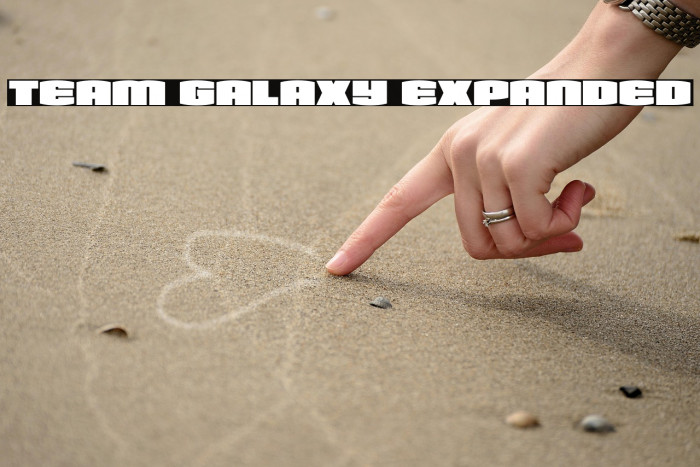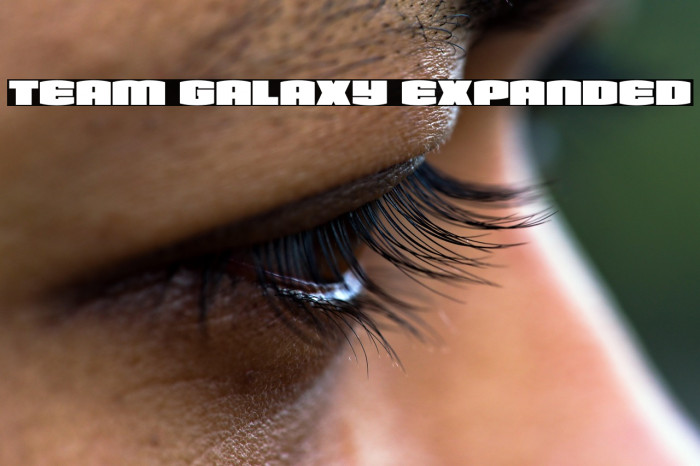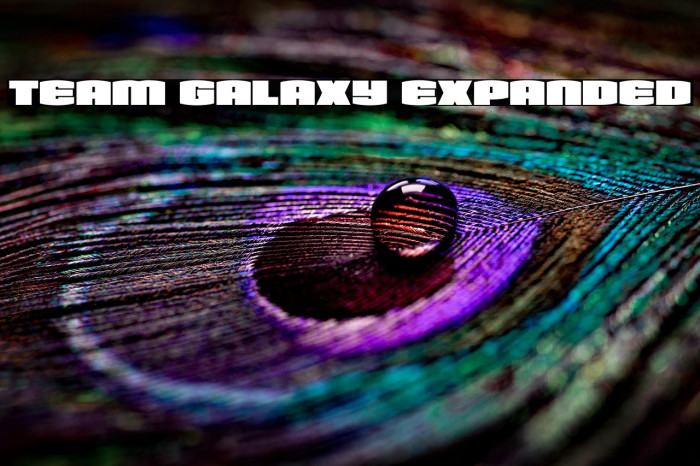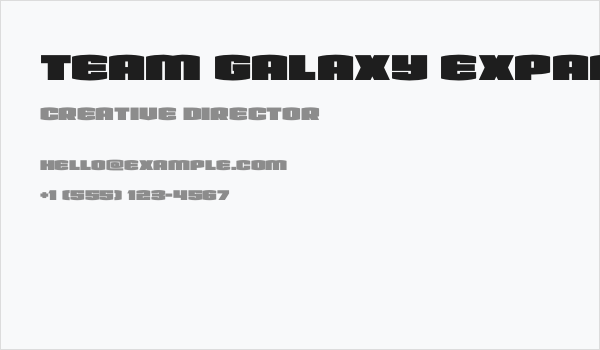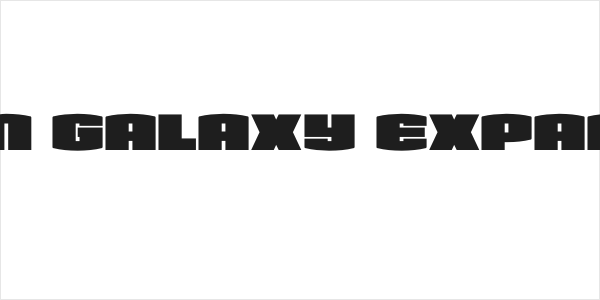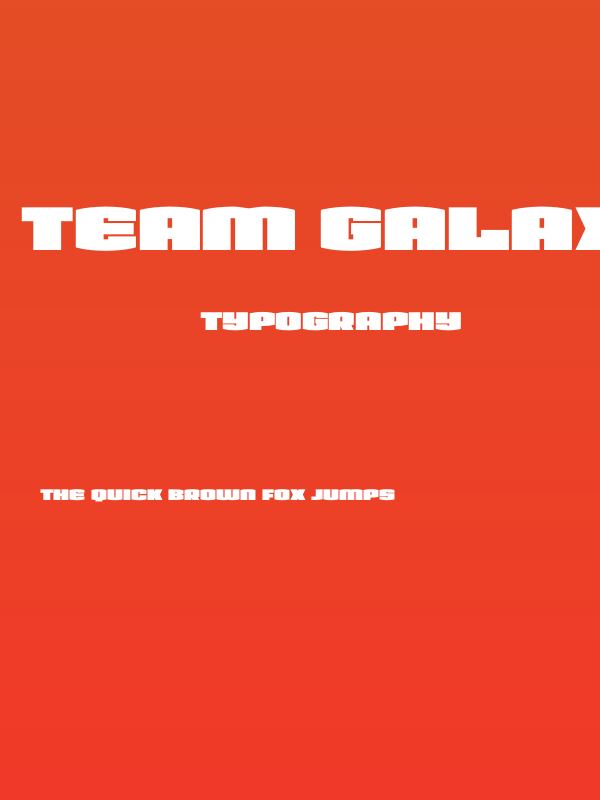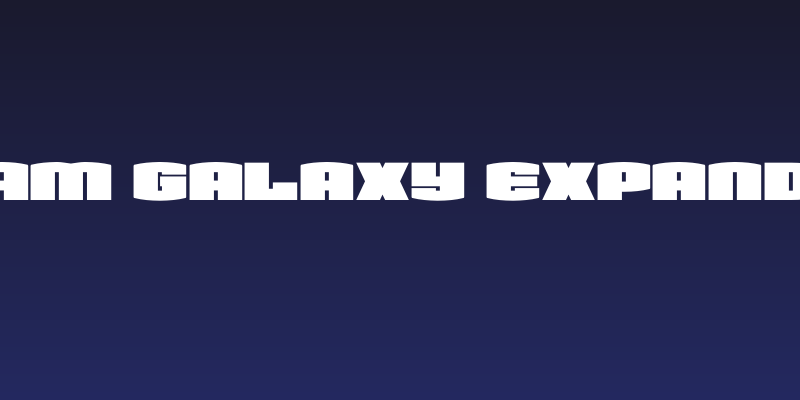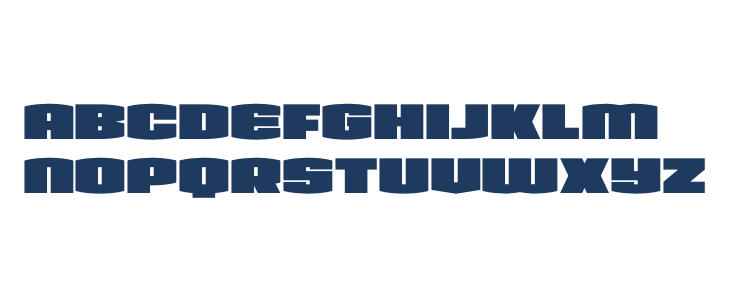
Team Galaxy Expanded Font
Team Galaxy Expanded Description
This font exhibits a bold and expansive style, characterized by its thick, block-like letterforms that convey a sense of strength and modernity. The uppercase letters are uniformly wide, creating a cohesive and impactful visual presence. The lowercase letters maintain the same boldness, ensuring consistency across different text cases. Numbers and special characters are designed with the same robust structure, making them easily legible and visually striking. This font's design is ideal for making a statement, with its wide and bold characters demanding attention.
| Proposed Projects | Ideal for headlines, posters, branding materials, and any project requiring a strong visual impact. |